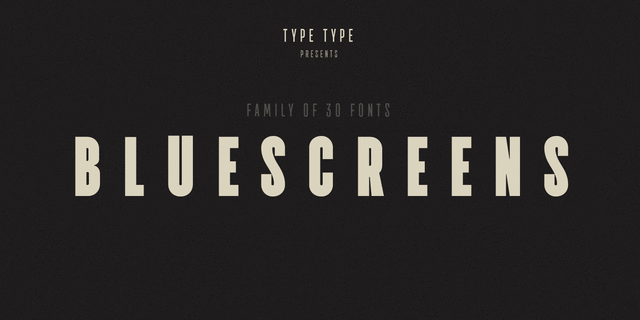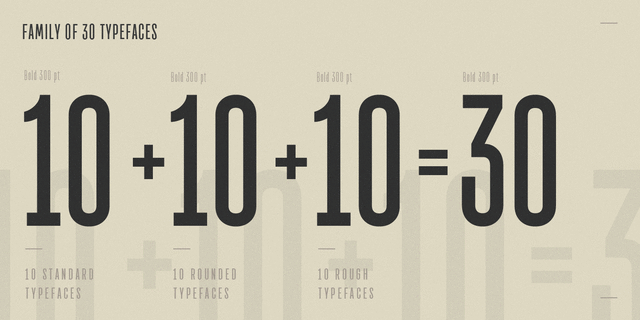
TT Bluescreens (32)
About TT BluescreensBlockbusters, posters, titles and movie trailers — now we have created the perfect font family for this. Bluescreens — a high-quality font family which is designed specifically for cinephiles and directors. Condensed style contains five most popular typefaces: Thin, Light, Regular, Bold, Black and Italics. Designed in TypeType studio in 2015.
Features of font family TT BluescreensThe hit of the decade:
Associations for font family TT BluescreensTypeface personality and character:
flat, slim, thin, easy, compressed, static, tall, urban, monotone, stable, accurate, logical, cold, delicate, weightless, transparent, wire, close-fitting, solid, cinematic, serious, adult, important, notable, loud, motivating, proud, ambitious, authoritative, convincing, urgent, monumental, strong, reliable, responsible, cinema, heavy, powerful, black, persistent, bright, active, splashy, Soft, neon, plastic